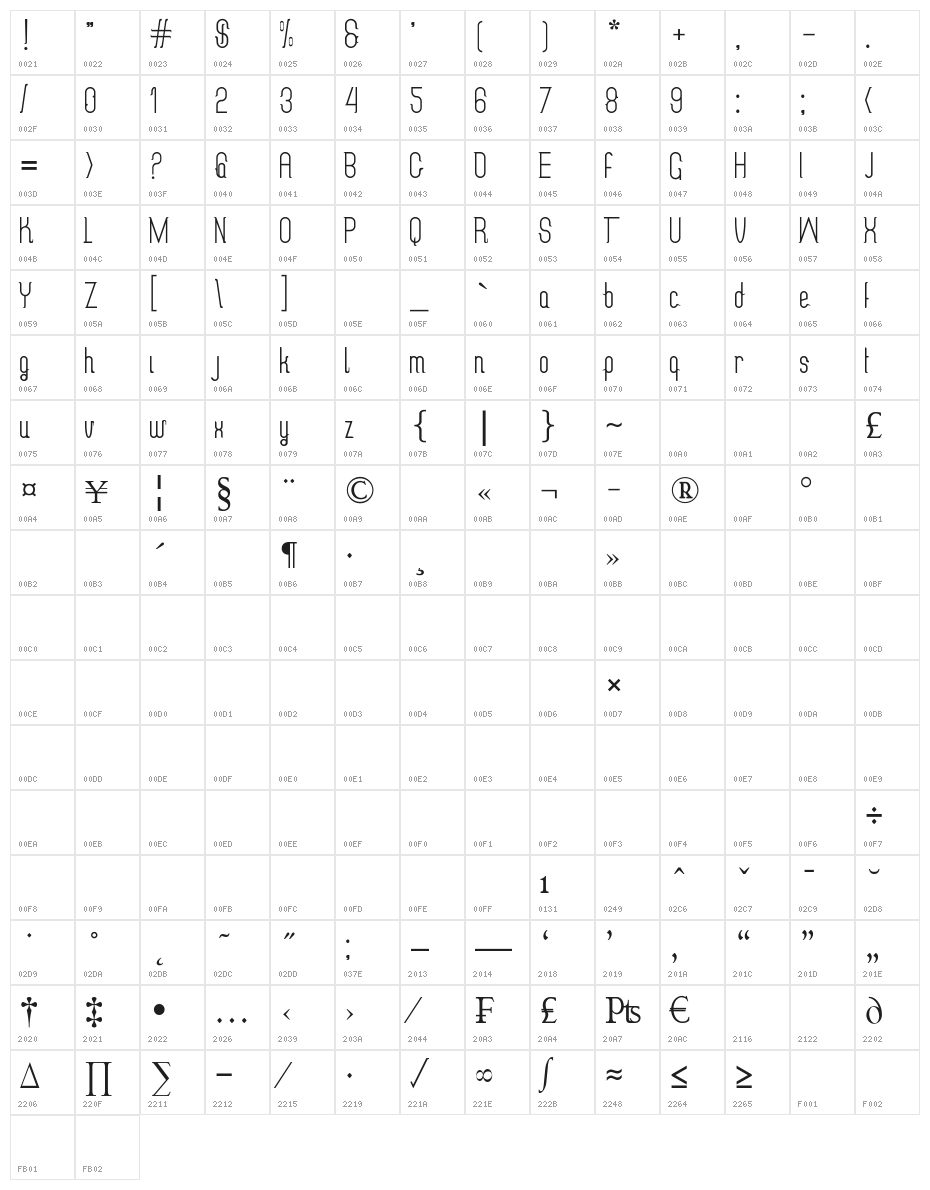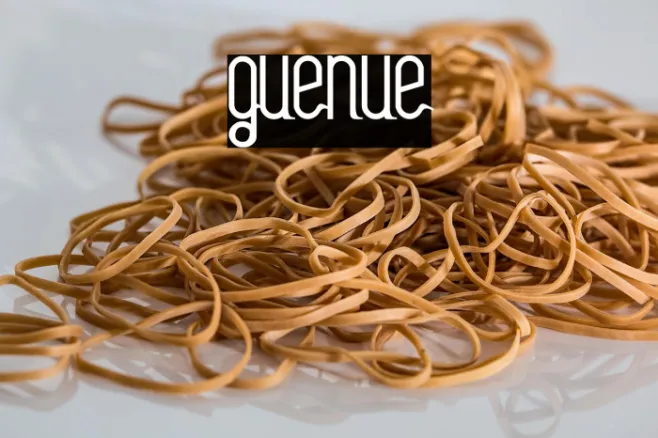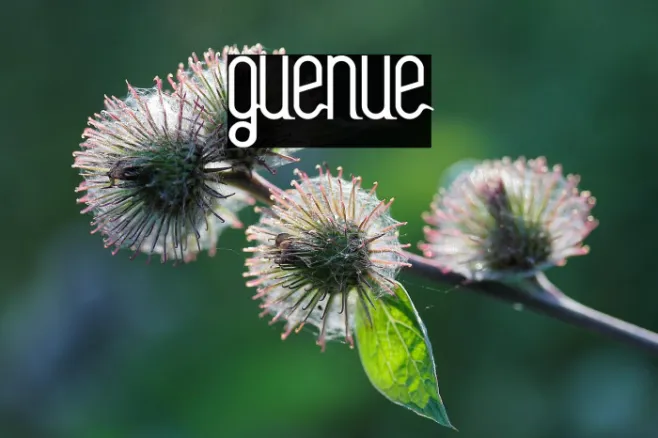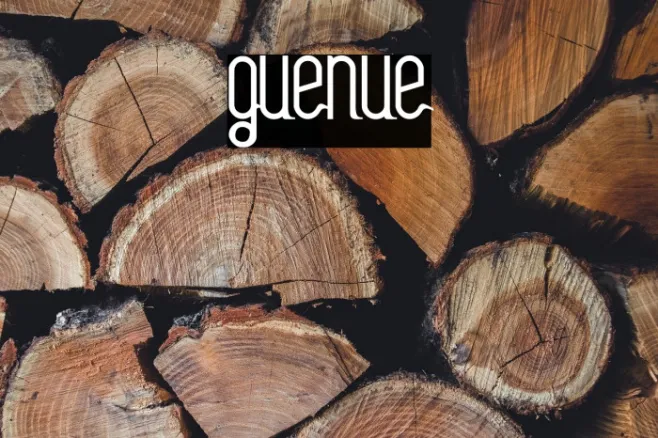
guenue Font
guenue Description
This font features a unique and modern design with elongated, narrow characters that create a sleek and sophisticated appearance. The uppercase letters are tall and slender, while the lowercase letters maintain a consistent height, adding to the uniformity of the typeface. The numbers and special characters follow the same narrow style, ensuring a cohesive look across all text elements. The overall design is minimalistic yet distinctive, making it suitable for contemporary and stylish applications.
| Proposed Projects | Ideal for fashion magazines, modern branding, minimalist posters, and stylish website headers. |